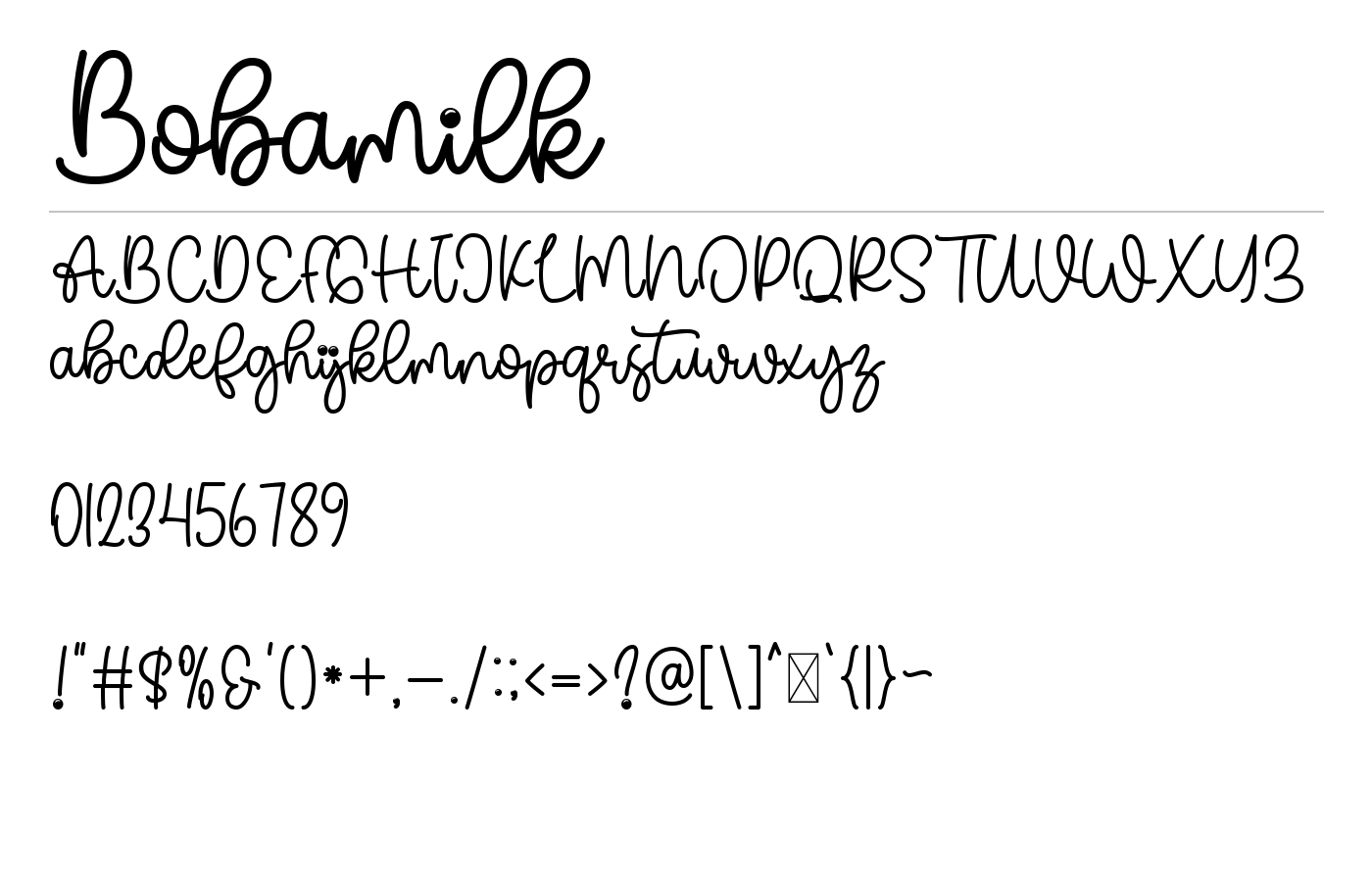
Bobamilk is a playful and casual handwritten script font with a light and airy feel, characterized by its tall, narrow letterforms and flowing, connected strokes. Its lively style and slightly quirky details make it a great choice for creative projects, branding, invitations, and any design that seeks a friendly and approachable vibe. This font works well in headlines and logos where a personal, hand-crafted touch is desired.
Bobamilk Font
About Bobamilk Font